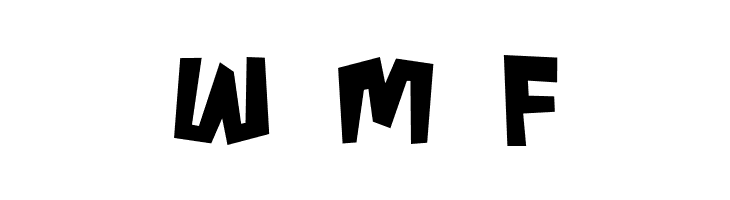
A modern, barcode-inspired font with vertical line patterns.
An elegant, flowing script font with smooth, cursive letterforms.
A decorative font inspired by ancient symbols and runes, featuring bold, hand-drawn characters.
A bold, decorative font with angular, playful shapes and thick strokes.
A bold, playful script font with a dynamic, handwritten style.
A bold, vintage typewriter-style font with a mechanical and nostalgic feel.
A playful, bold font with rounded strokes and a dynamic, informal style.
设计师偏爱 Heorot Expanded, back to heavy coat fat ground_line-v Regular, Avelana Medi Ital PERSONAL USE, PRViking Alternates and MondoBeyondoBB-Bold,因为其造型干净、适用范围广—— 从品牌识别到落地页、海报都能胜任。